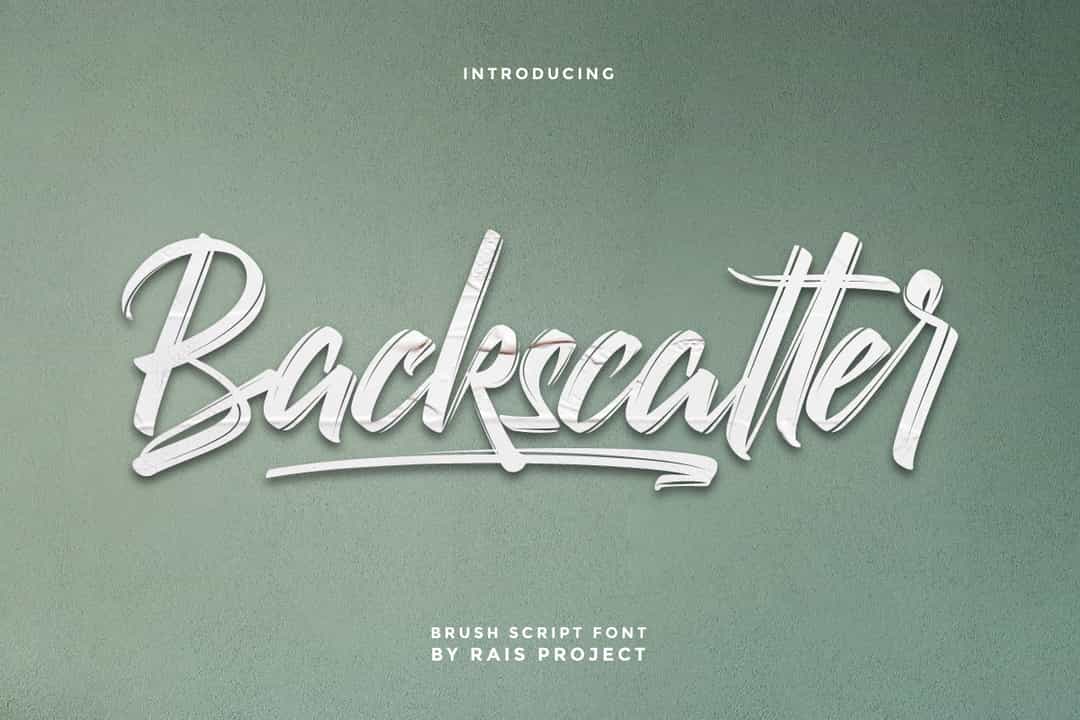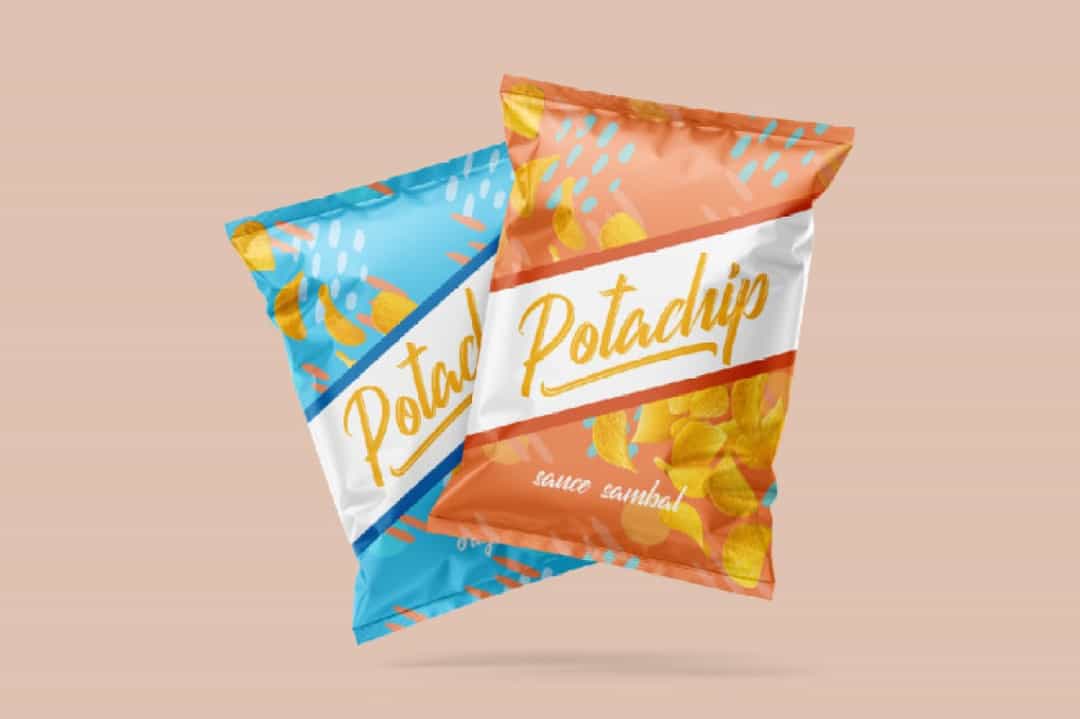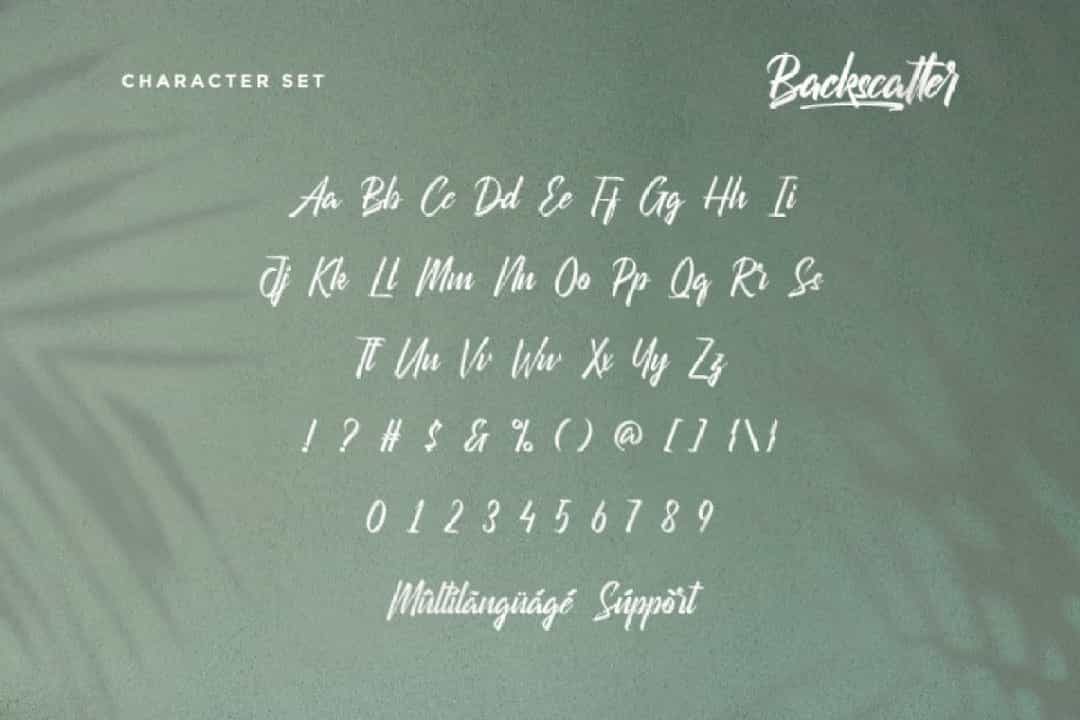
Backscatter is an incredible cursive script typeface. It exudes power, confidence, and vibrance while adding nostalgia to your layouts. Backscatter is encoded as PUA which means that every glyph and swash can be found easily!